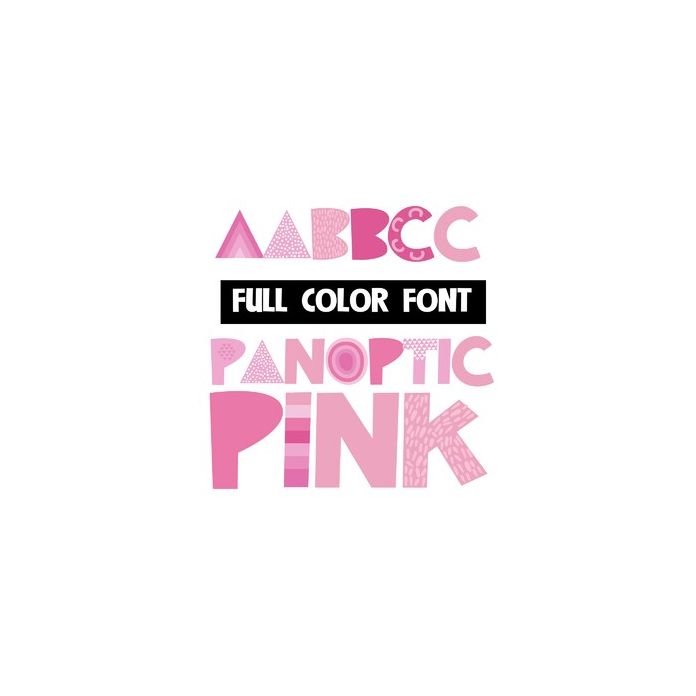
This modern, full-color font features letters filled w/ pink-colored designs. There is an alt case with more colors that you can access through Silhouette's glyph map.